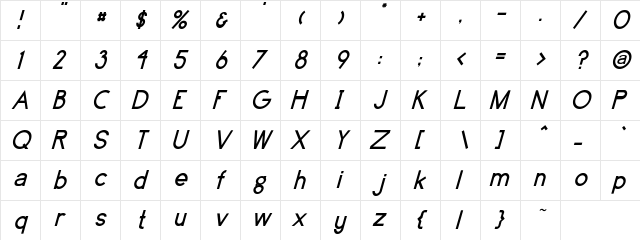
Greenfield-Ital Regular
Design Context for Greenfield-Ital Typeface
Greenfield-Ital offers clean, dependable letterforms without strong stylistic allegiance, making it a practical choice for designers who need flexibility.